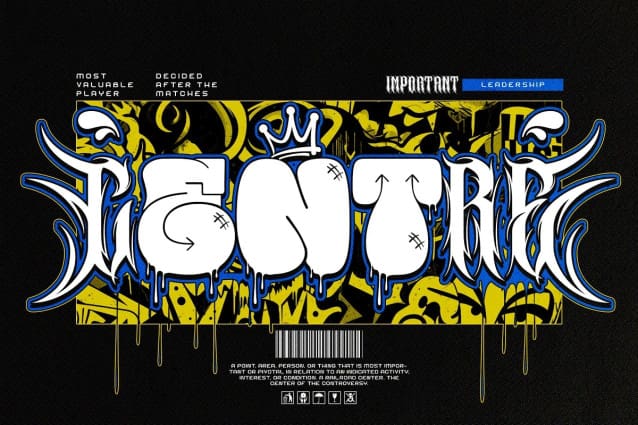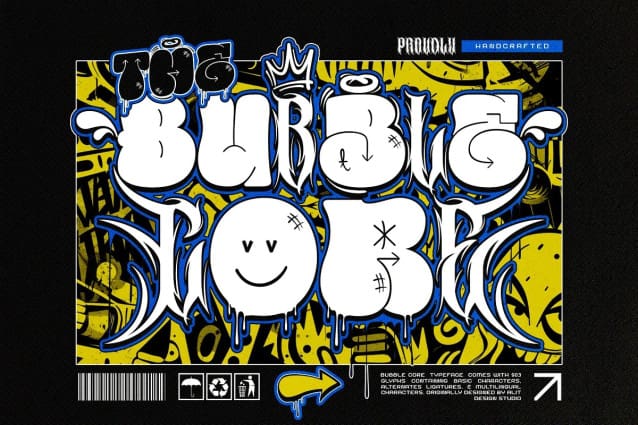
Bubble Core Font
Bubble Core Graffiti Mix Metal Font, a dynamic fusion of spiked metal aesthetics and playful bubble graffiti elements. This unique font brings together the raw energy of urban graffiti with the edgy sophistication of metal typography, resulting in a versatile and captivating typeface.
903 Characters: With an extensive glyph set comprising 903 characters, this font offers a wide range of options for creative expression. From letters and numbers to symbols and punctuation marks, every element is meticulously crafted to maintain consistency and coherence.
Mix Font Concept: The blend of spiked metal styles and bubbly graffiti influences creates a visually intriguing mix font concept. Each character strikes a balance between rugged metallic edges and soft, rounded curves, adding depth and dimension to your designs.
Versatile Usage: Whether you’re designing logos, posters, album covers, or digital artwork, Bubble Core Graffiti Mix Metal Font adapts effortlessly to various creative projects. Its bold and expressive nature makes it perfect for projects that demand attention and convey a sense of urban style.
Distinctive Character: Stand out from the crowd with a font that exudes character and personality. The juxtaposition of industrial metal and street art vibes gives your designs a unique edge, setting them apart in the world of typography.
Elevate your designs with the bold and dynamic presence of Bubble Core Graffiti Mix Metal Font. Explore the fusion of spiked metal and bubble graffiti styles, and unleash your creativity with this versatile and captivating typeface.